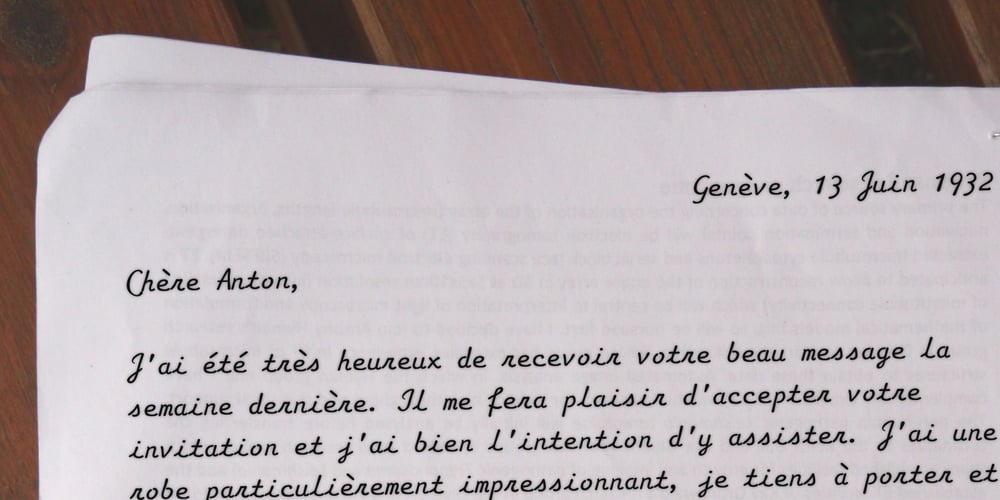
Marista
Marista font
Marista Font Family was designed by Richard Wheeler and published by Zephyris. Marista contains 2 styles and family package options. Marista is a bit of an unusual design, a cursive monospaced font inspired by the classic cursive typewriter fonts used in the 1960s-70s. It is designed to feel ‘real’, and captures some of the light irregularities in line weight which characterise real typewritten text rather than their computer equivalents. Marista is distinctive but easily readable, even in block text where some monospaced fonts suffer. Marista is best used at small to medium sizes, and at a uniform size throughout a document or design to capture the typewritten feel. The italic is more similar to authentic typewriter cursive fonts. Try it for your next letter or invitation!